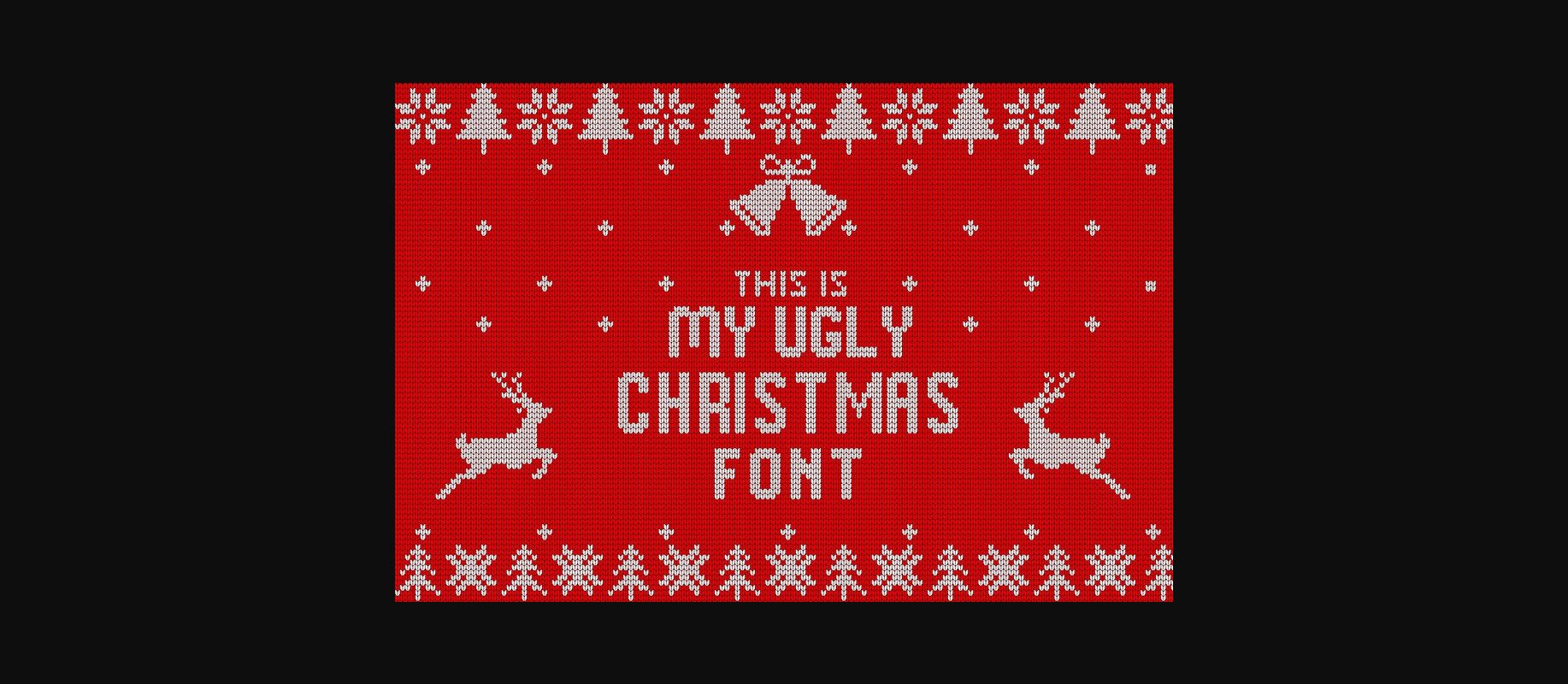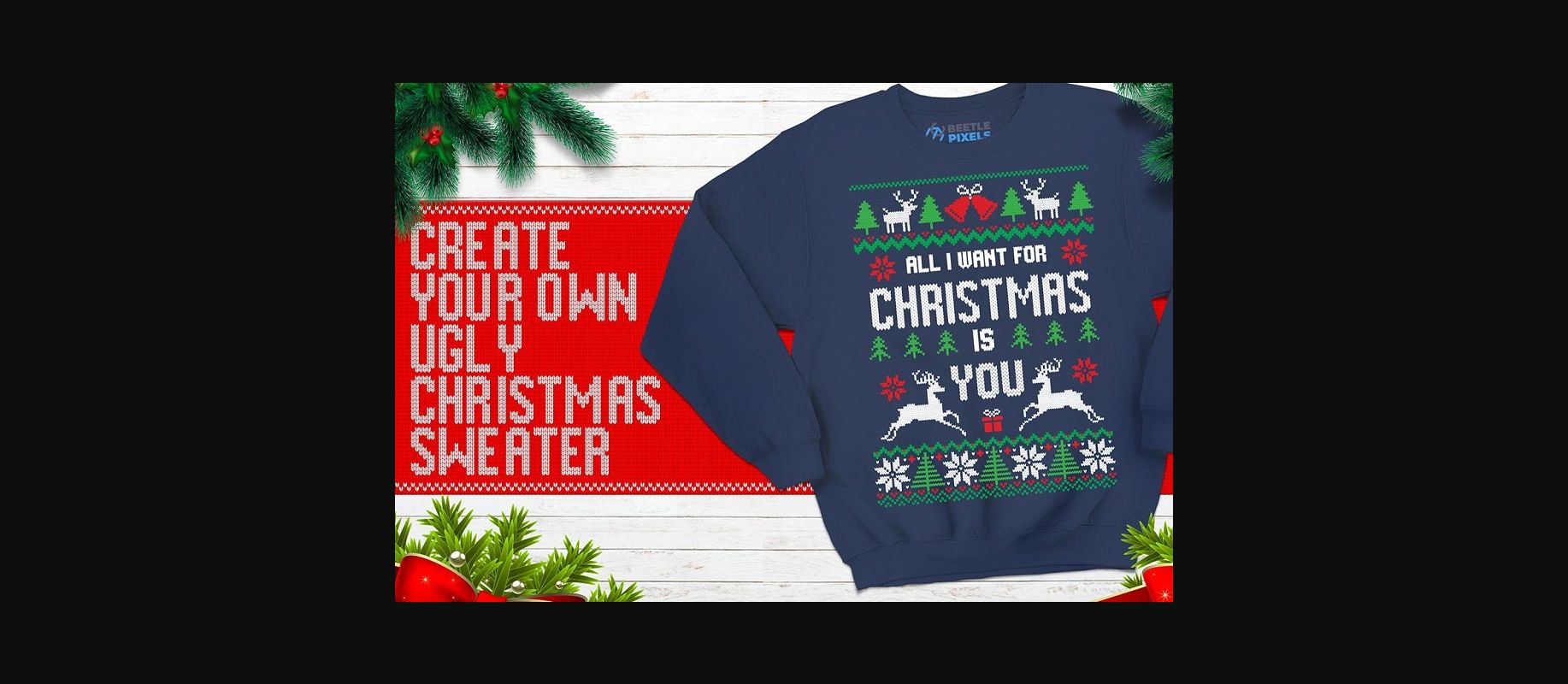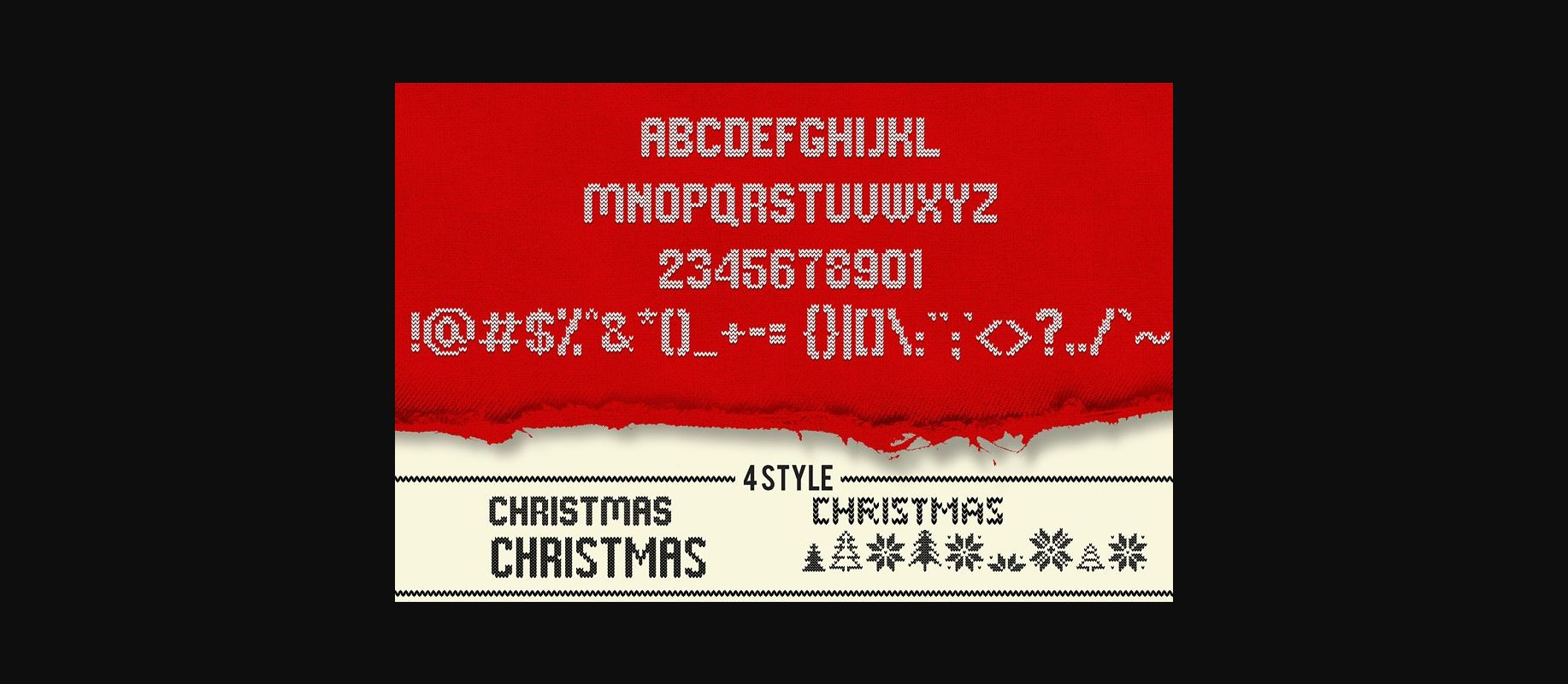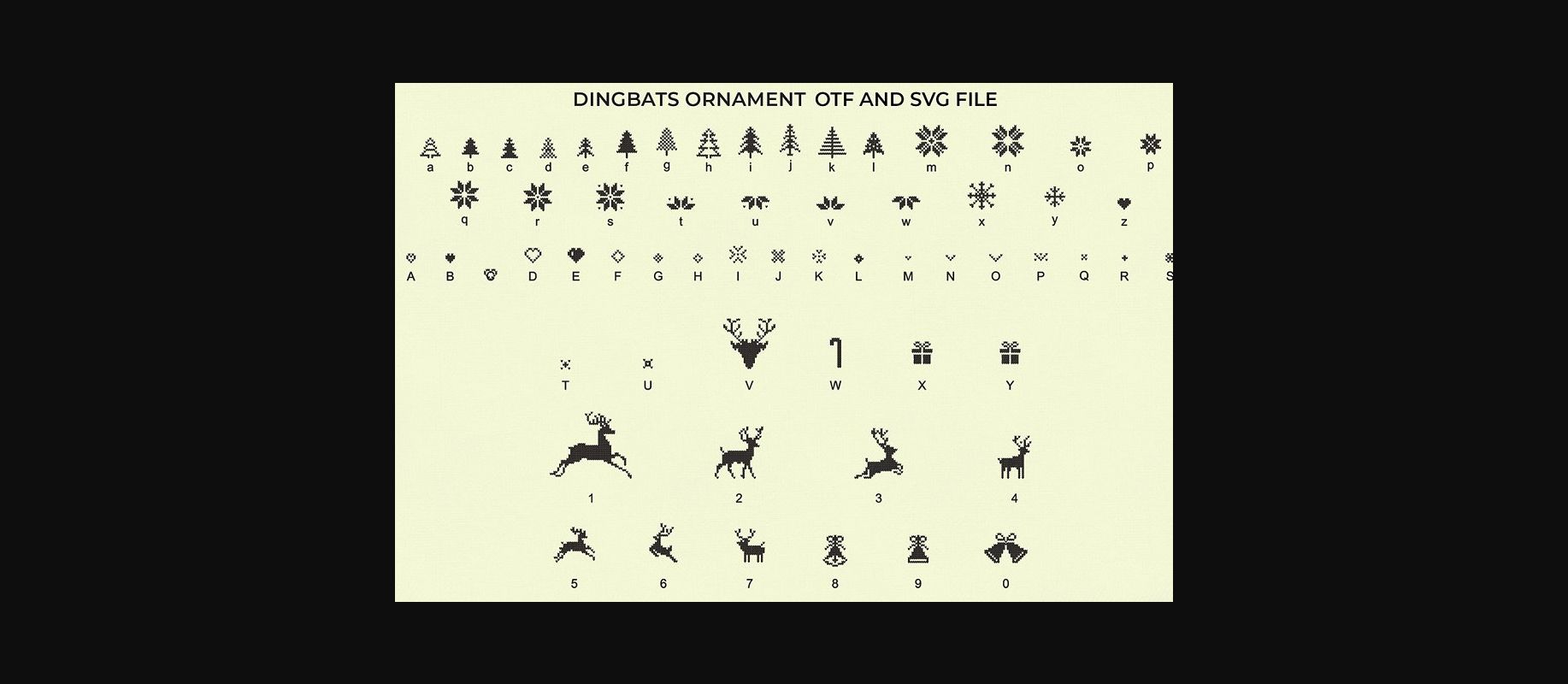
My Ugly Christmas Font
About My Ugly Christmas Font
Inspired by your best and worst Christmas sweaters, My Ugly Christmas is a fun and ironic decorative font for the holidays.